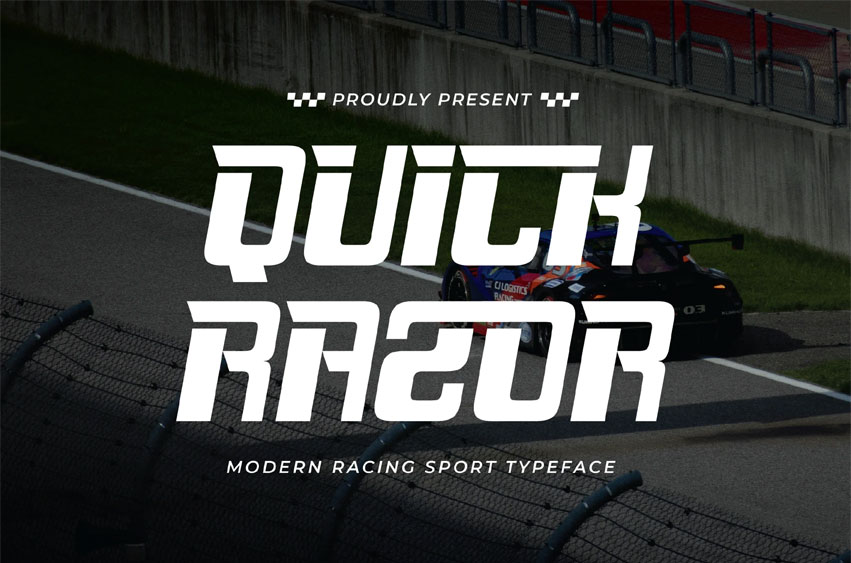
Quick Razor Font is a high-performance sport racing typeface engineered for bold, dynamic branding. Designed with sharp angles, aerodynamic cuts, and a speed-driven structure, this font delivers the ultimate adrenaline-charged visual identity. Perfect for motorsport teams, racing event promotions, automotive branding, esports logos, and high-tech sports advertising — Quick Razor turns every headline into a high-speed statement.
Crafted to express strength and velocity, Quick Razor ensures your design doesn’t just look fast — it feels fast. Ideal for projects demanding excitement, intensity, and professional modern edge.
Elevate your brand with the speed, power, and precision of Quick Razor — the font built for champions.